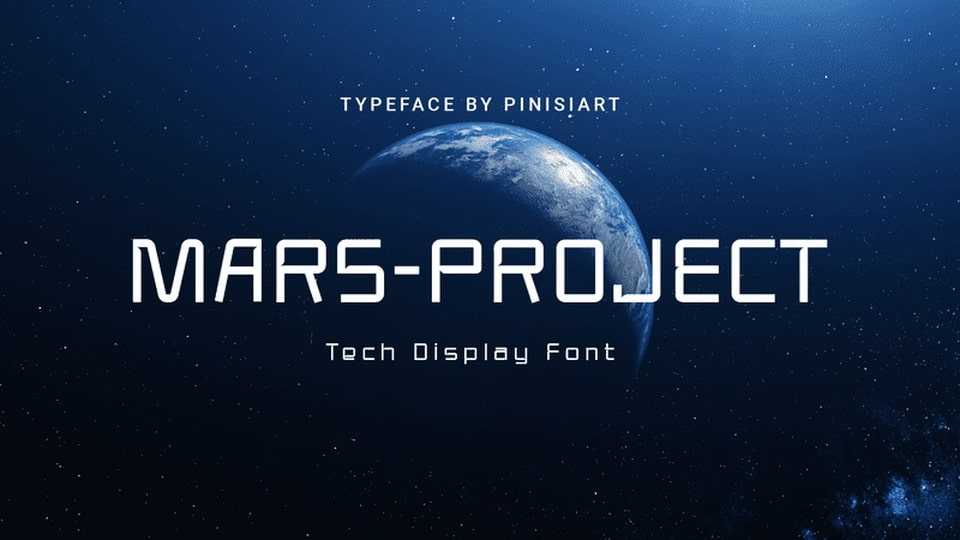
Download Mars Project font, a techno display typeface. The time of space exploration is here. and Mars Project is the perfect font for it. The clear and crisp shapes of the letter, represent the fast-moving tech in the future.